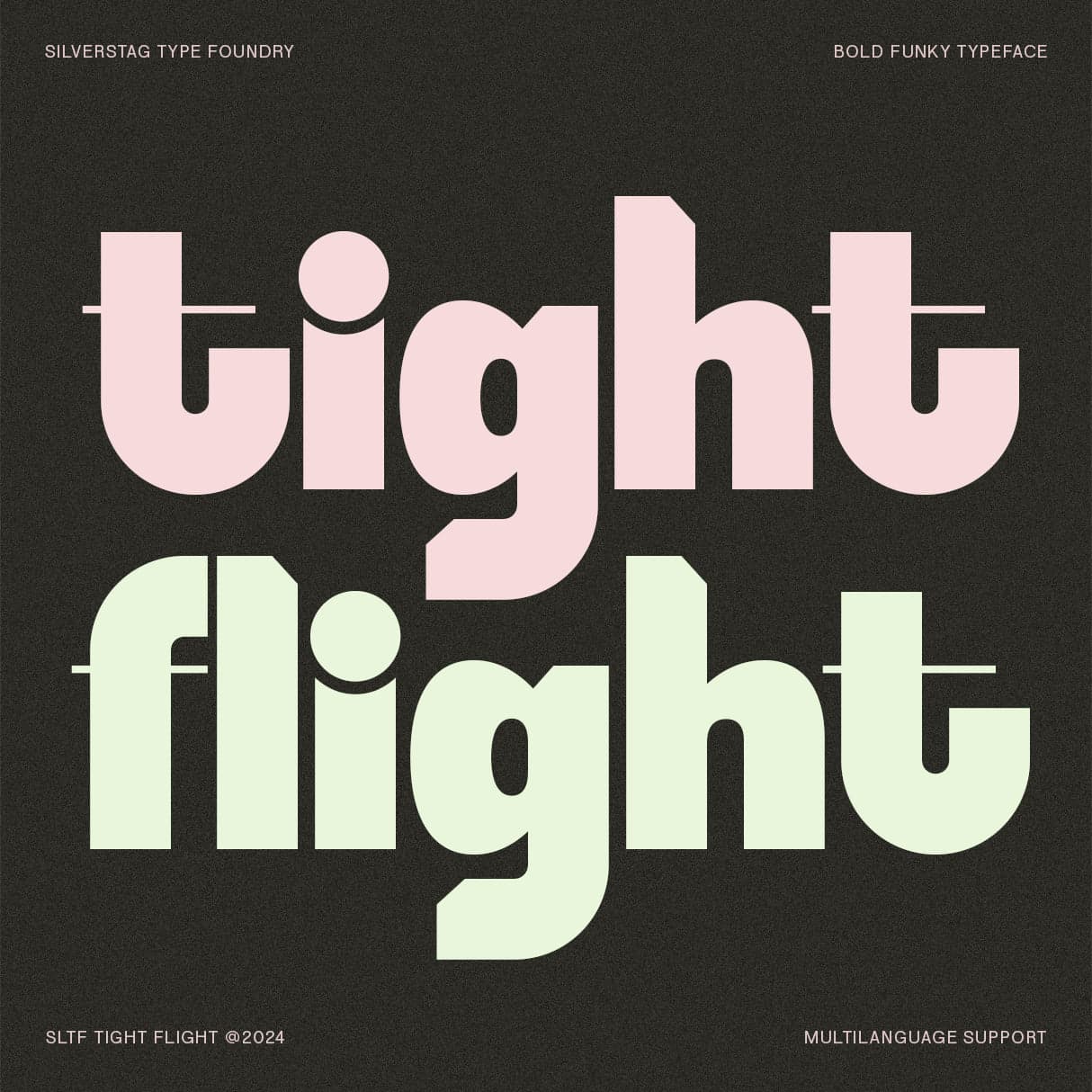
<p><strong>SLTF Tight Flight - A Bold & Funky Sans Serif for Designs That Soar</strong></p><p>Introducing SLTF Tight Flight, a typeface that's ready to take your designs to new heights. This bold and funky sans serif is bursting with personality, perfect for projects that demand attention and exude a sense of modern cool.</p><p>With its strong lines, geometric shapes, and unexpected curves, SLTF Tight Flight strikes the perfect balance between boldness and sophistication. Its unique character is sure to make your headlines pop, your logos stand out, and your branding soar.</p><p><strong>Key Features:</strong></p><ul><li><p><strong>Versatile:</strong> SLTF Tight Flight is equally at home in headlines, logos, posters, packaging, and web design.</p></li><li><p><strong>Expressive:</strong> With its bold personality and unique style, it adds a touch of modern flair to any project.</p></li><li><p><strong>Chic:</strong> SLTF Tight Flight exudes a sense of cool confidence, perfect for brands and designs that want to make a statement.</p></li><li><p><strong>Globally Inclusive:</strong> With support for over 90 languages, SLTF Tight Flight speaks to a diverse audience.</p></li><li><p><strong>Meticulously Crafted:</strong> Every detail has been carefully considered to ensure readability, visual appeal, and a truly unique typographic experience.</p></li></ul><p>Happy creating everyone!</p>